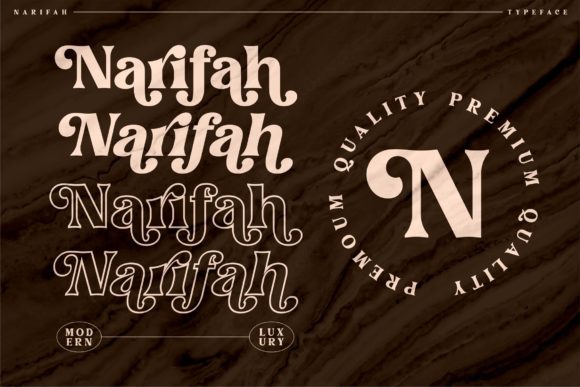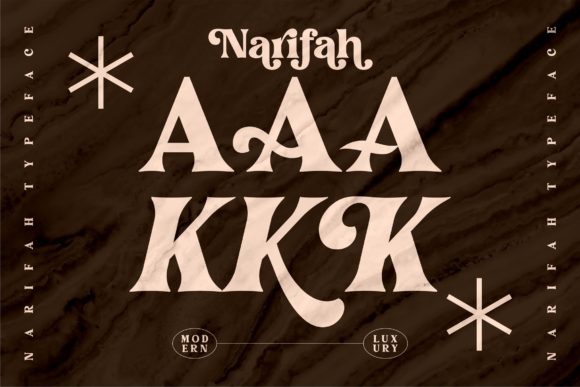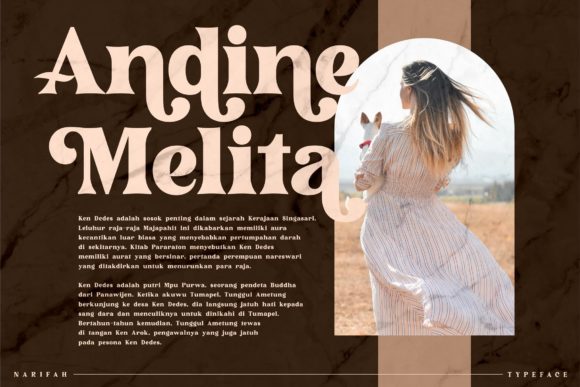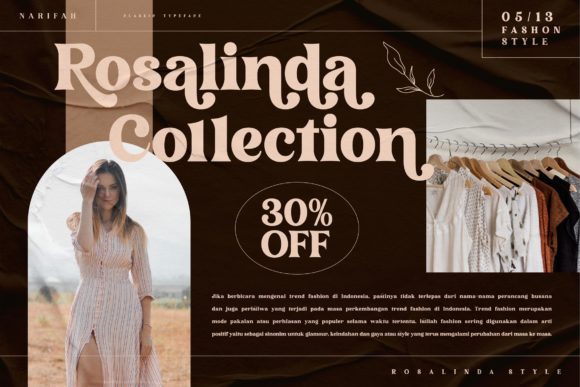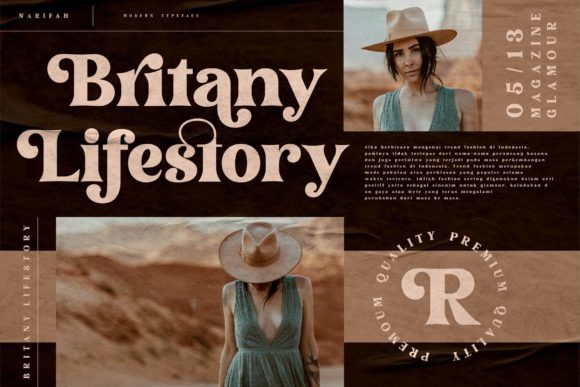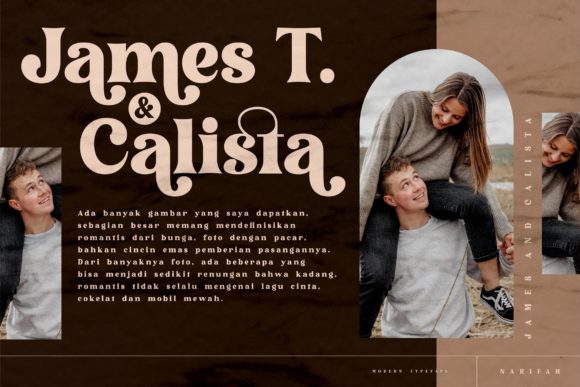
Introduction to Narifah Font
Have you ever been working on a creative project, pouring your heart and soul into it, only to realize that the right font is missing? The one that would elevate your design from good to amazing? For designers, finding the perfect font can be a game-changer, and that’s exactly what the Narifah Font offers.
As a bold, stylish, and thick lettered serif font, Narifah Font is a high-quality design resource that can add a touch of sophistication to any project. Its PUA encoding ensures that you can access all the glyphs and swashes with ease, making it a valuable tool for creatives who want to take their work to the next level.
Key Features of Narifah Font
- High-quality font with a unique and creative design, perfect for various projects such as logo design, branding, and other creative endeavors.
- Designed to be highly legible and readable, making it an excellent choice for various creative projects, including magazines, books, and more.
Honest Review: Narifah Font
What works well for the Narifah Font is its unique and elegant aesthetic, making it perfect for a variety of design applications. The transparent background allows for seamless integration with other design elements, giving me the flexibility to customize as needed. The font is also incredibly versatile, suitable for use in both digital and print design.
- ✨ Unique and elegant aesthetic
- ✨ Transparent background for seamless integration
- ✨ Versatile and suitable for various design applications
However, I did notice a few limitations with the Narifah Font. The font’s consistency can be a bit inconsistent, with some letters appearing slightly different from others. Additionally, the font’s bold weights can sometimes appear too heavy or overpowering.
- ⚠️ Inconsistent letterforms
- ⚠️ Bold weights can be too heavy
Narifah Font
The Narifah Font is a high-quality design resource perfect for creative projects that require a unique touch. With its transparent background, this font is ideal for adding a touch of elegance to your designs.